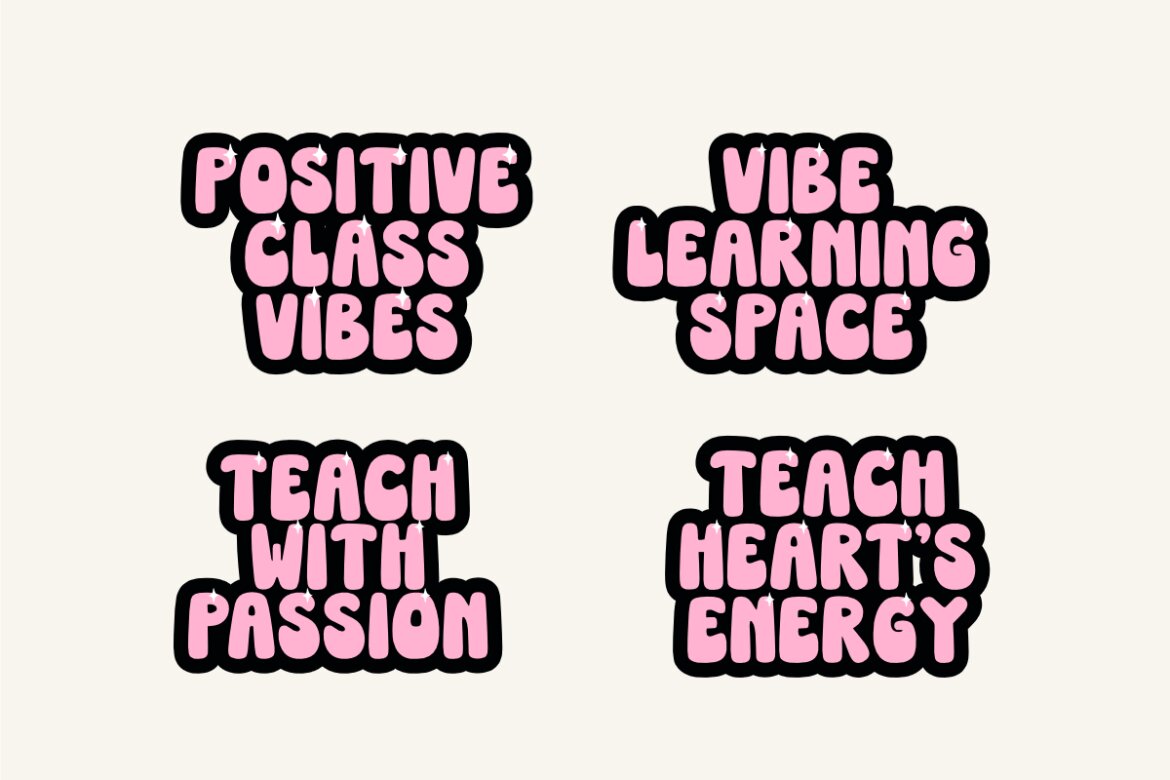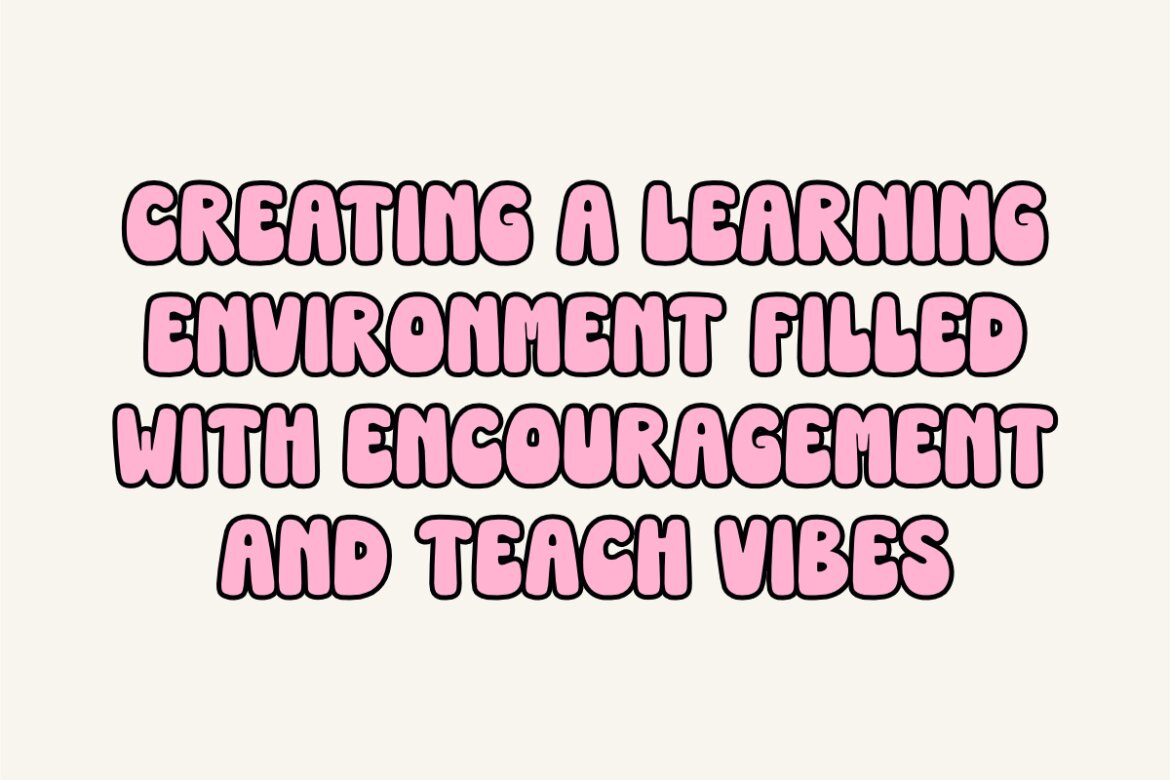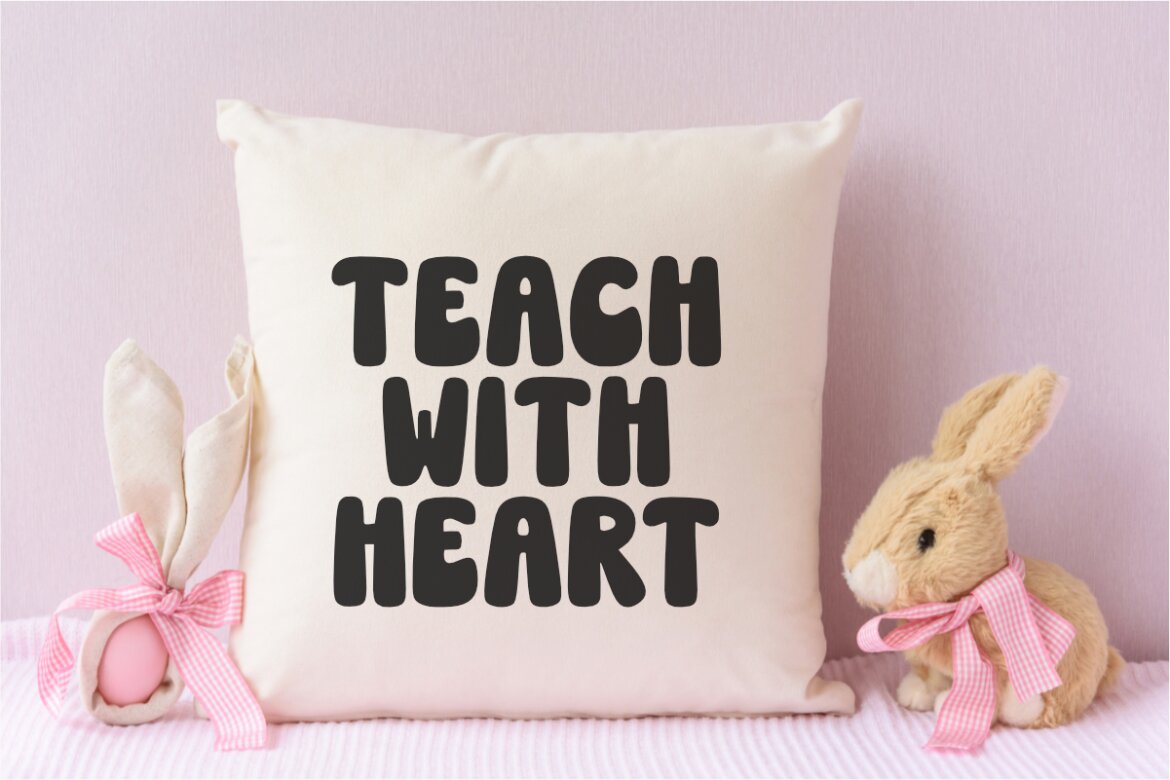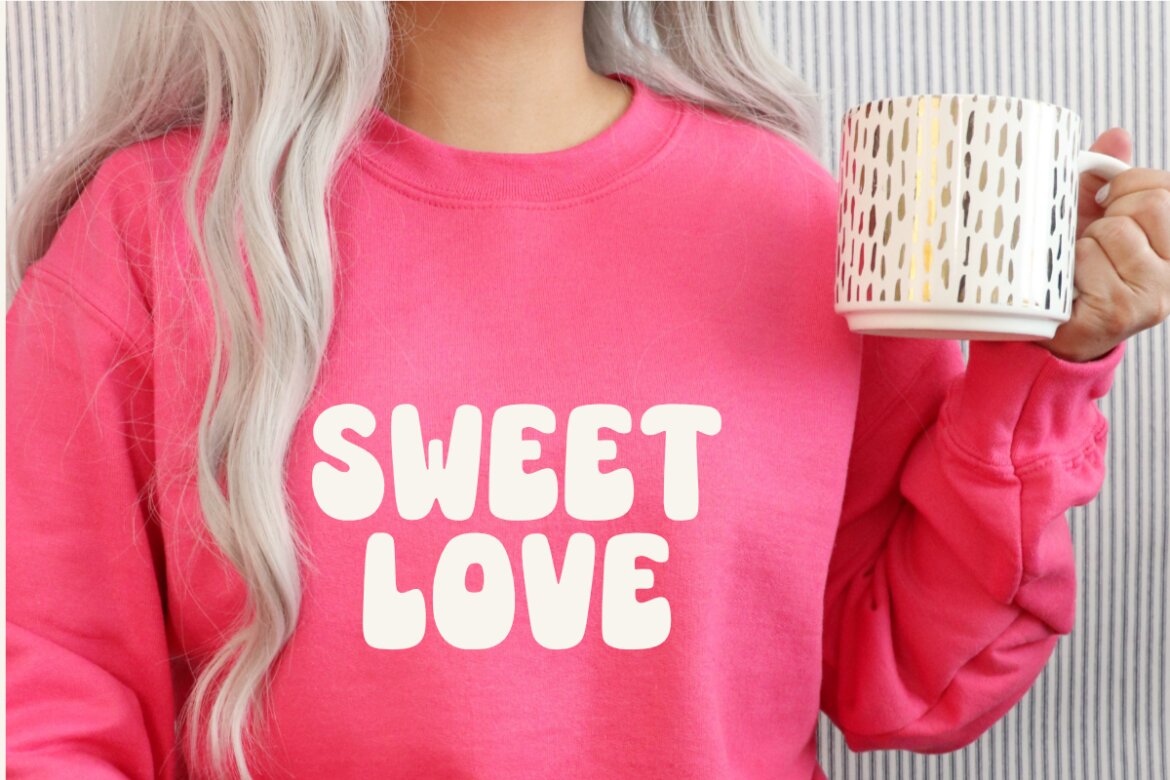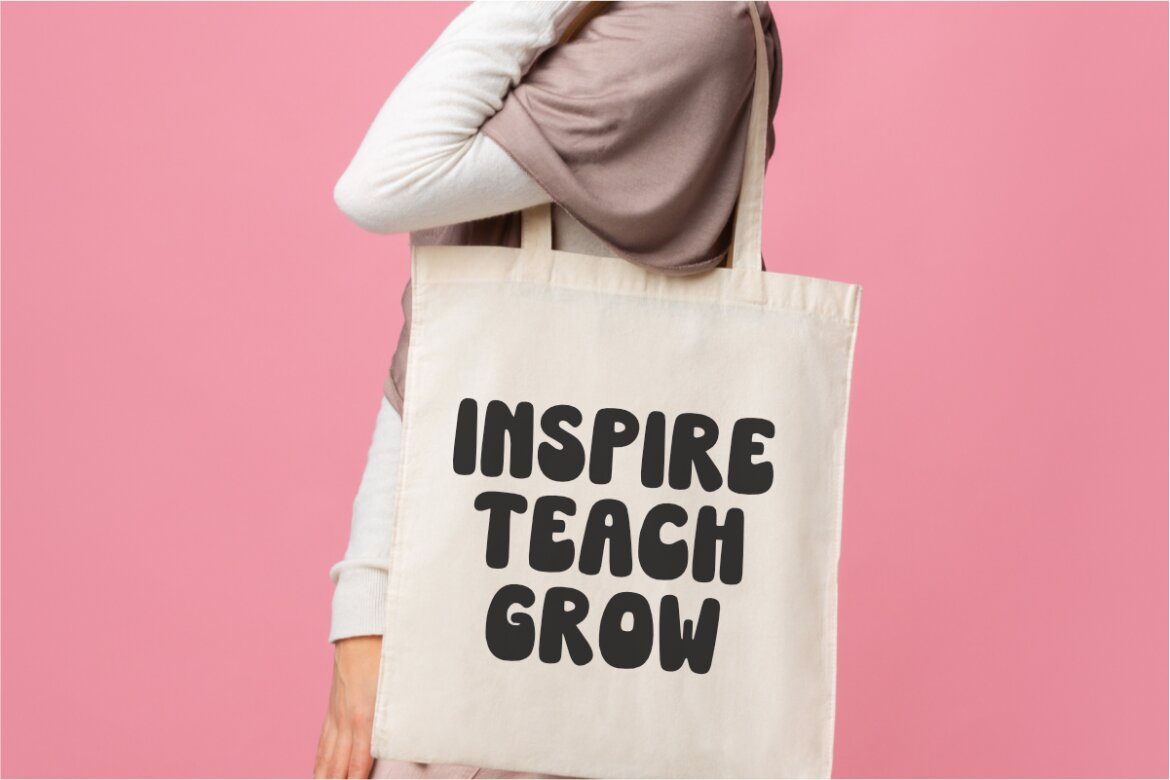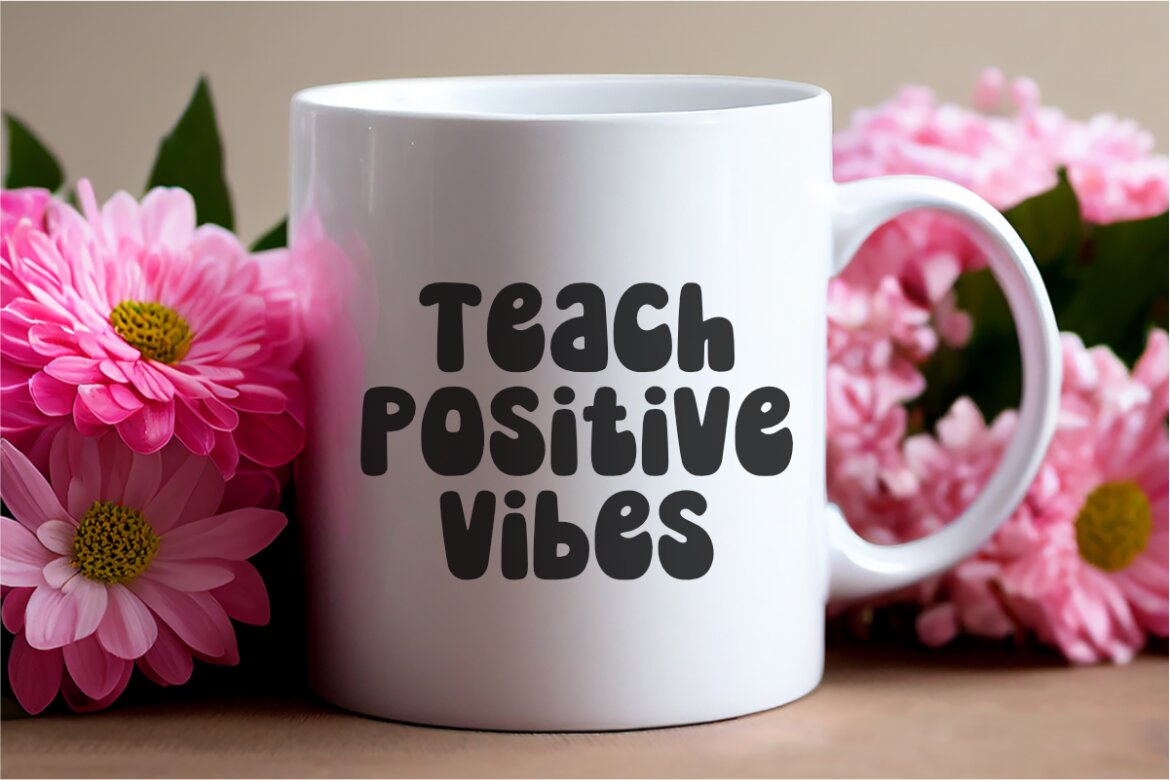
Teach Vibes - Free Groovy Font
Teach Vibes is a charming and retro-inspired groovy font that exudes a fun and positive energy. Its rounded, slightly elongated letterforms with a bold outline and subtle inner shadow create a distinctively retro yet contemporary vibe. The addition of playful starburst accents enhances its cheerful and engaging personality. This font is perfect for injecting a dose of retro coolness and positive vibes into a wide array of creative projects. Imagine Teach Vibes bringing a fun retro flair to stickers, groovy planner designs, inspiring t-shirt graphics, eye-catching labels, unique invitations, personalized tumblers, and countless other engaging crafts.
Its distinctively retro and cheerful style makes it exceptionally well-suited for products targeting end-users who enjoy crafting with Cricut, sublimation, and other DIY methods, adding a touch of vintage charm and positive energy to their creations. Teach Vibes’ unique character will make your designs stand out with its nostalgic yet fresh and appealing aesthetic, spreading good vibes with its retro charm and playful stars.